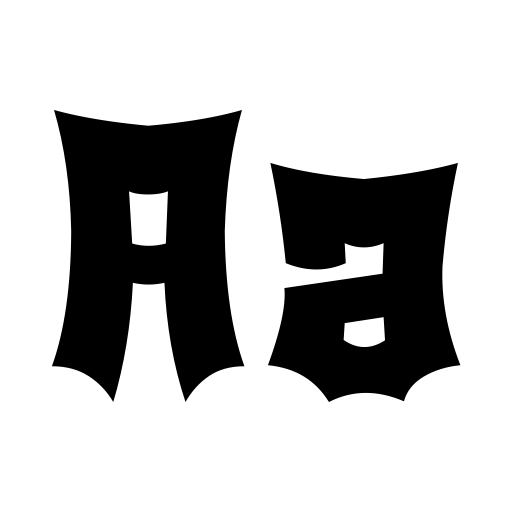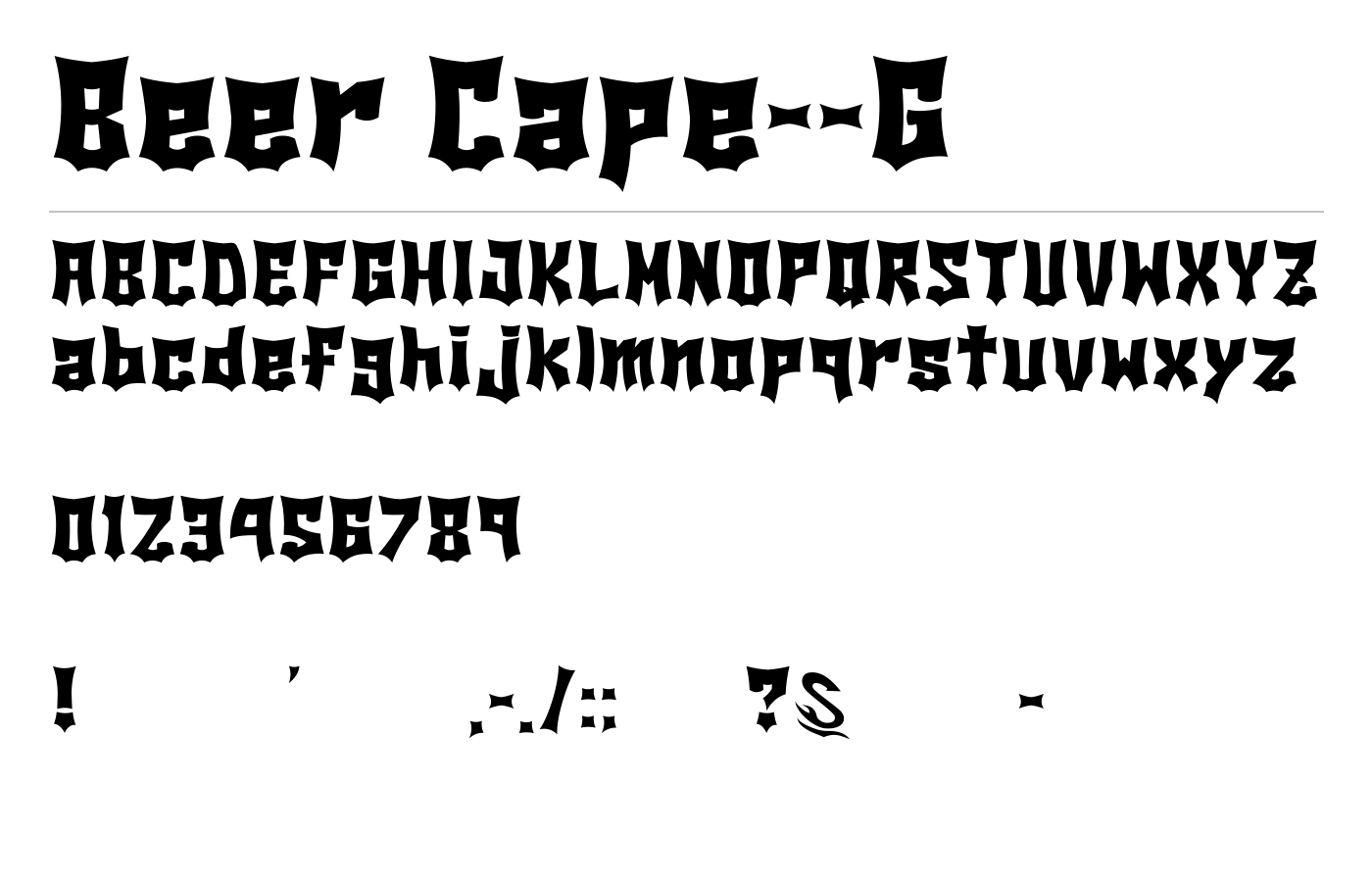
Beer Cape__G is a bold, decorative serif font with unique angular serifs that give it a vintage yet edgy feel. Its heavy weight and condensed width make it eye-catching and perfect for headlines or branding that seeks a strong, distinctive personality. This font is ideal for creative projects, signage, and packaging where a dramatic, retro vibe is desired.
Beer Cape__G Font
About Beer Cape__G Font